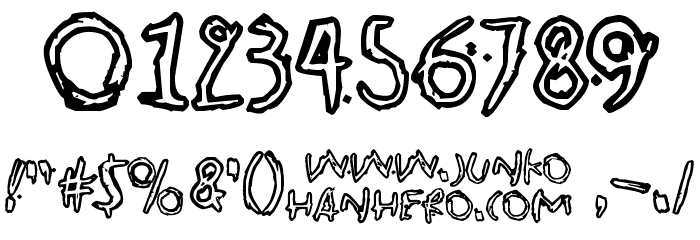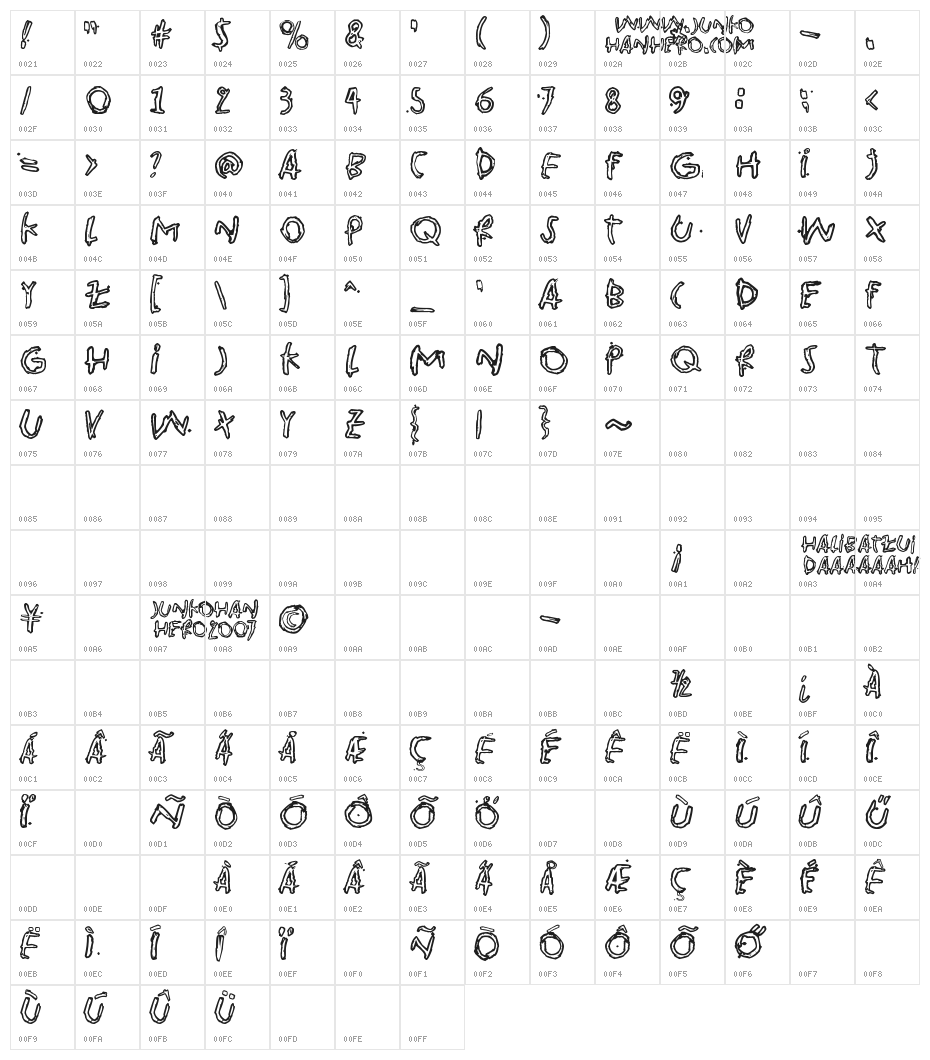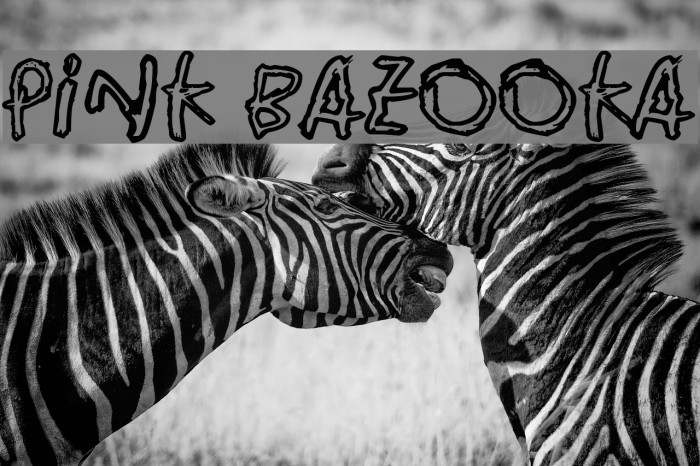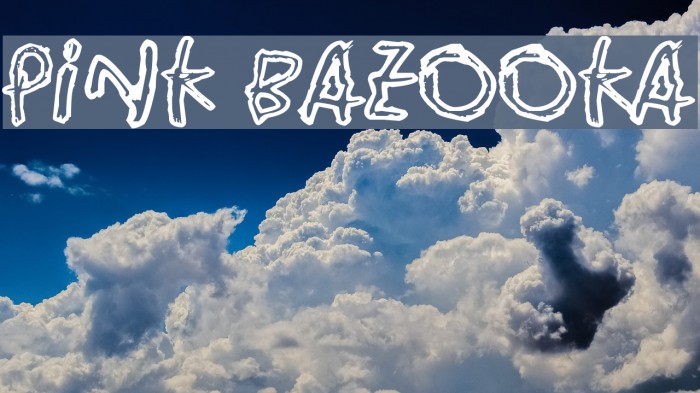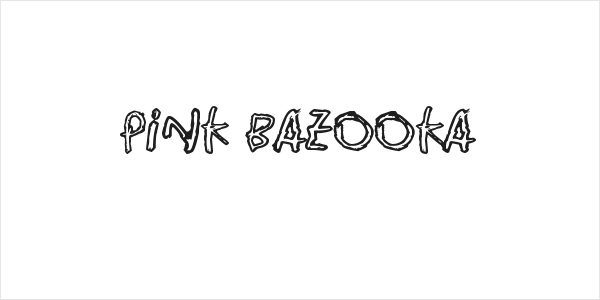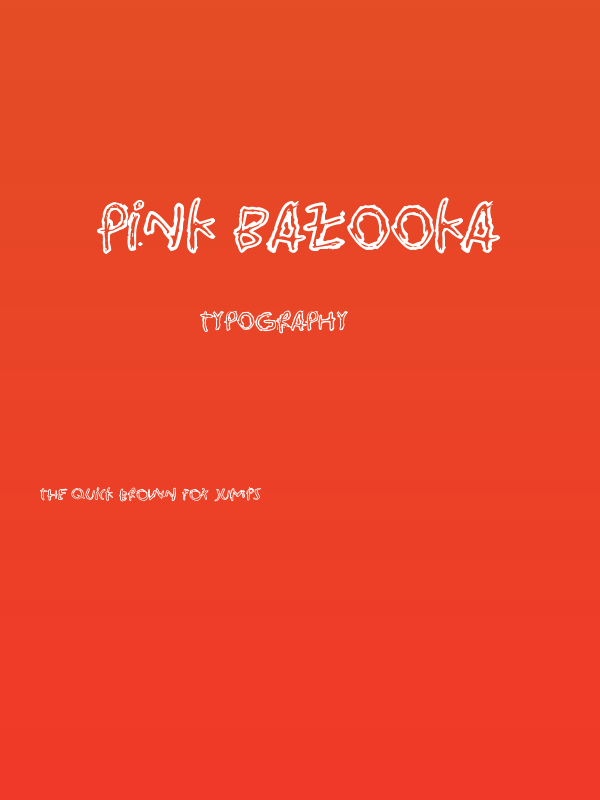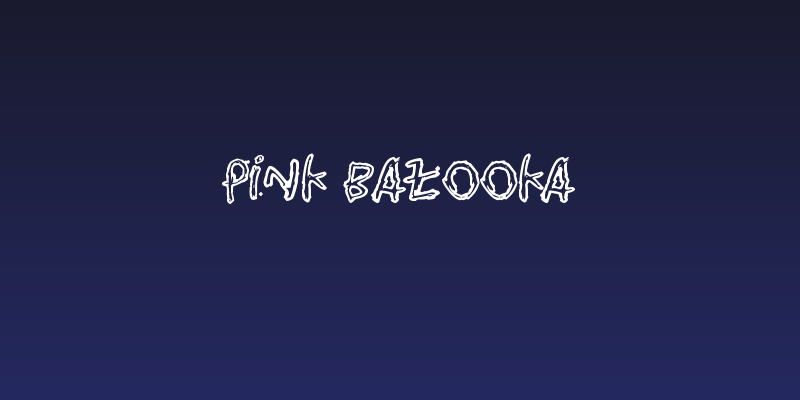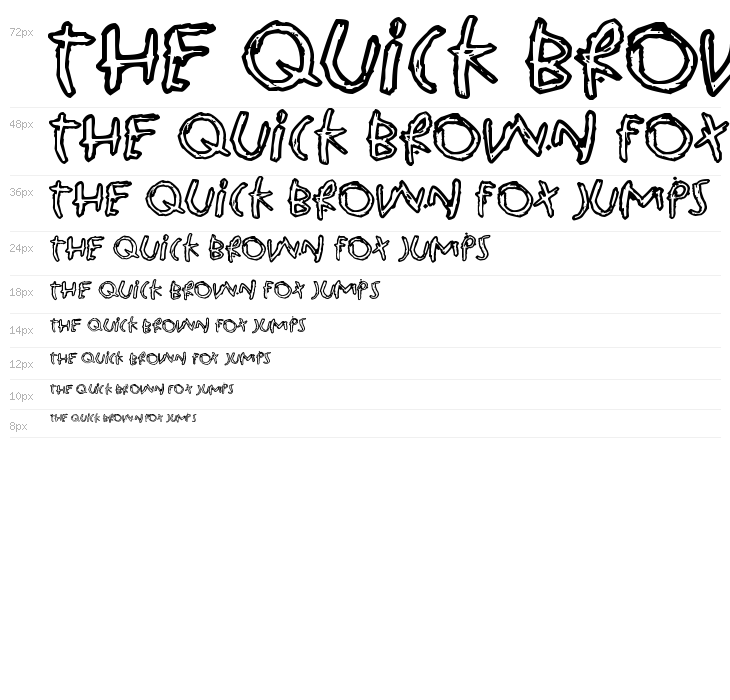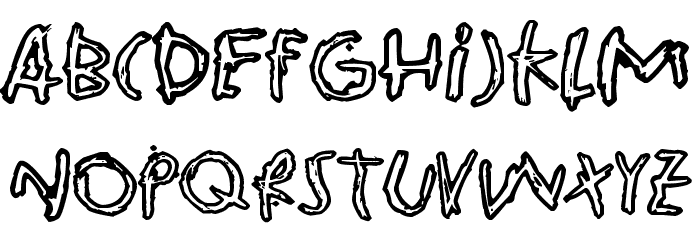
Pink Bazooka Font
Pink Bazooka Description
This font features a bold, graffiti-inspired style with a rough, hand-drawn appearance. The characters are irregular and dynamic, giving a sense of movement and energy. The strokes are thick and uneven, with a playful, rebellious vibe. The uppercase and lowercase letters maintain a consistent style, while the numbers and special characters complement the overall aesthetic. This font is ideal for projects that require a bold, eye-catching look, such as posters, album covers, or streetwear branding. Its unique style makes it stand out, adding a touch of urban flair to any design.
| Overall Style | Urban, Rebellious, Playful |
| Proposed Projects | Posters, album covers, streetwear branding, urban-themed designs. |